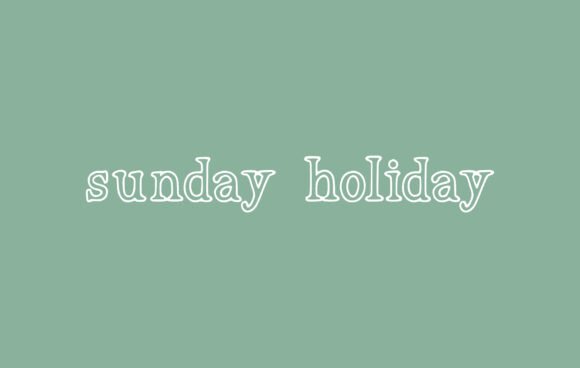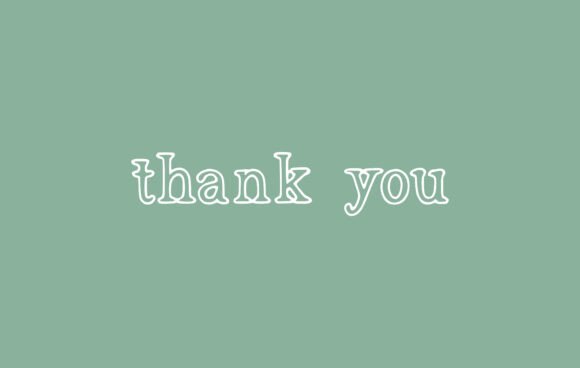
The CyberGlow Font: A Futuristic Twist for Your Designs
I’ll never forget the struggle I faced while working on a sci-fi themed project for a client. I was on a tight deadline, and the font I had chosen just wasn’t cutting it. The client wanted something that screamed “futuristic” and “high-tech,” but I was coming up blank. That’s when I stumbled upon the CyberGlow font. Its clean, neon-inspired vibe instantly caught my attention, and I knew I had found the perfect fit. In this article, I’ll share my experience with CyberGlow, its features, and how to make the most of it in your designs.
An Honest Review of CyberGlow
What I Love About CyberGlow
- ✨ Futuristic Aesthetic: CyberGlow’s soft edges and airy form give it a digital aesthetic that’s ideal for tech branding, UI titles, and sci-fi themes.
- ✅ Clean and Legible: The font is easy to read, even in smaller sizes, making it perfect for body text and headings.
- 💻 Versatile: CyberGlow comes with a range of OpenType features, glyphs, and stylistic alternates, allowing you to experiment with different styles and effects.
While CyberGlow is an excellent font, it’s not without its quirks. Here are a few things to keep in mind:
- ⚠️ Limited Use in Print: Due to its neon-inspired design, CyberGlow may not be the best choice for print projects, especially those that require a more traditional or formal look.
- 🤔 Glyph Limitations: While CyberGlow comes with a range of glyphs and stylistic alternates, some users may find the selection limited compared to other fonts.
The Story Behind CyberGlow
CyberGlow was designed with the goal of creating a font that embodies the spirit of technology and innovation. The designer’s inspiration came from the neon lights of Tokyo’s streets, the glow of computer screens, and the futuristic landscapes of sci-fi movies. The result is a font that’s both futuristic and approachable, making it perfect for a wide range of design projects.
Q: What is the best use for CyberGlow?
A: CyberGlow is ideal for tech branding, UI titles, and sci-fi themes. Its futuristic aesthetic and clean design make it perfect for projects that require a modern and innovative look.
Q: Is CyberGlow suitable for body text?
A: Yes, CyberGlow is legible and clean, making it suitable for body text. However, it may not be the best choice for long-form content or print projects.
Q: Does CyberGlow come with OpenType features?
A: Yes, CyberGlow comes with a range of OpenType features, glyphs, and stylistic alternates, allowing you to experiment with different styles and effects.